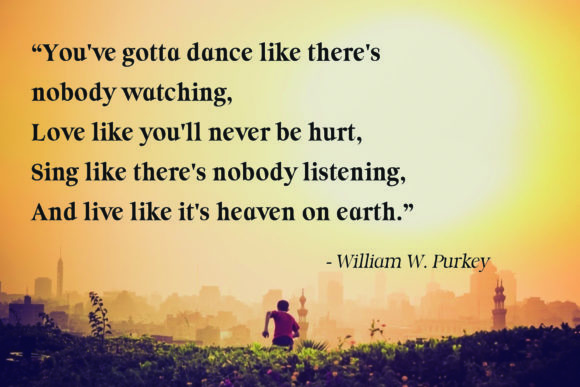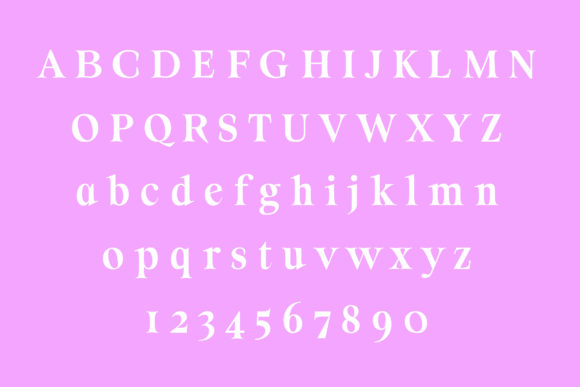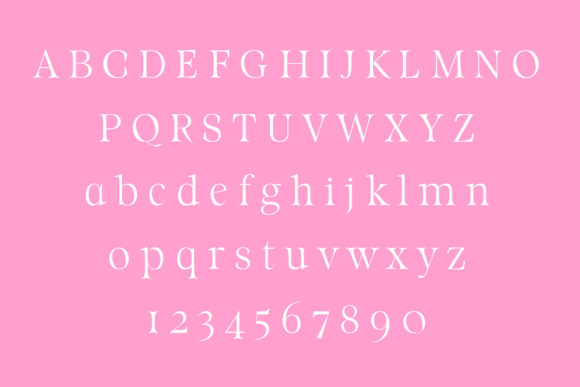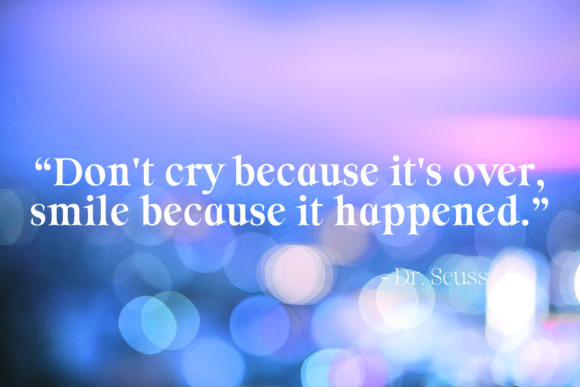
Introduction to Orson Font
Have you ever stared at a blank canvas, waiting for the perfect font to spark your next creative project? For many designers, that moment of inspiration can be elusive, but what if I told you there’s a font that can elevate even the simplest design into a stunning piece of art? Say hello to the Orson Font, a simple yet elegant serif font with a cool feel that’s sure to leave a lasting impression.
Key Features of Orson Font
- High-quality design: Enjoy the professional look and feel of Orson Font in your designs.
- Unique characteristics: Orson Font features a unique blend of modern and vintage elements, adding a touch of elegance to your designs.
Honest Review: Orson Font
I recently stumbled upon the Orson Font while searching for a free download to enhance my creative project. The first thing that caught my attention was the beautiful, high-quality design of this font.
- What works well: ✨ The Orson Font has a modern and sleek design, making it perfect for various creative projects. It’s highly legible and suitable for both body text and headings.
However, I did encounter some limitations while using the Orson Font:
- Limitations: ⚠️ The font does not come with a complete character set, which might limit its use for certain languages or projects.
Overall, I’m quite impressed with the Orson Font. Its unique design and high-quality feel make it a great addition to any design project. While it may have some limitations, I believe the benefits outweigh the drawbacks, making it a valuable design resource.